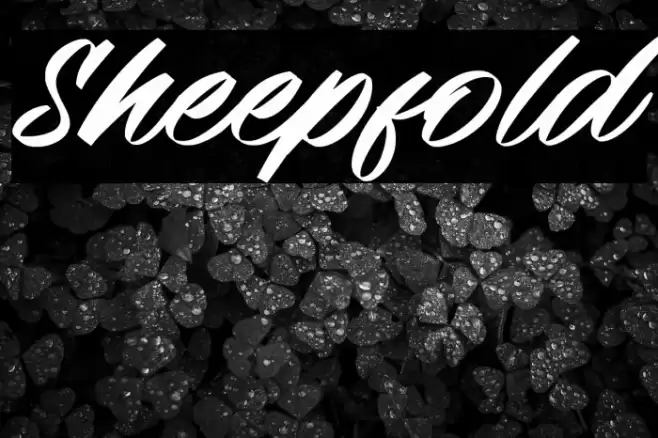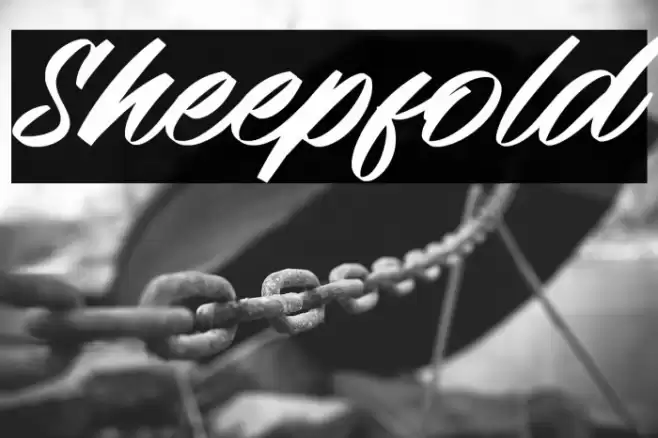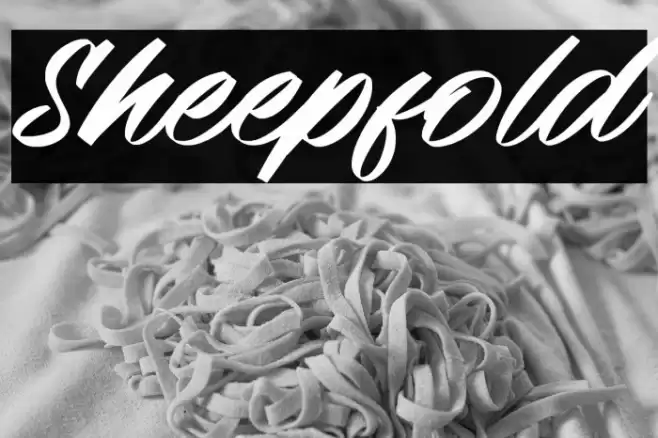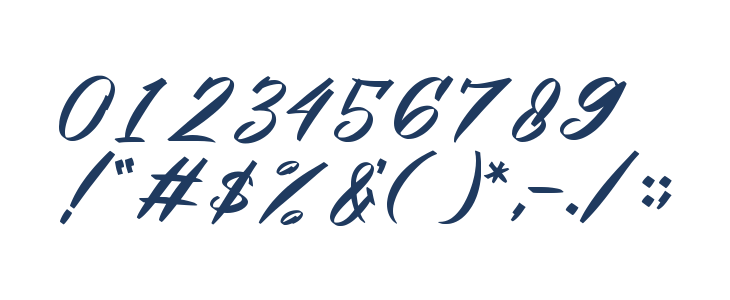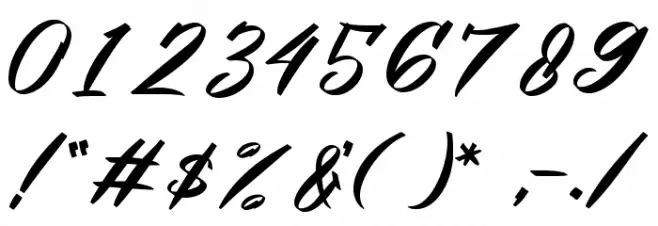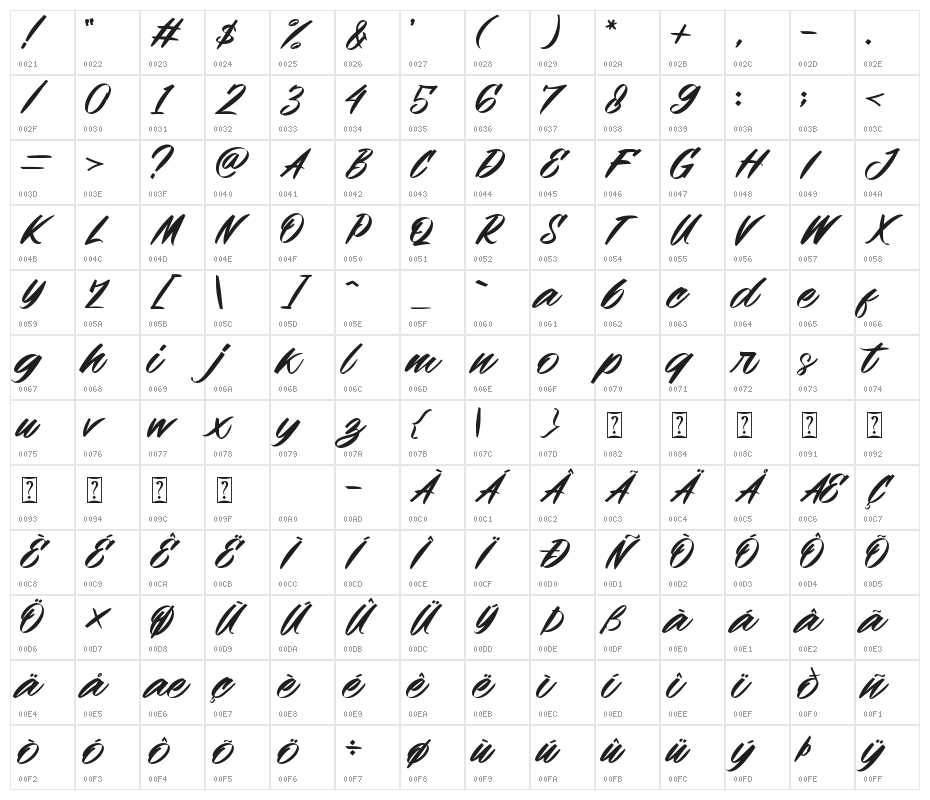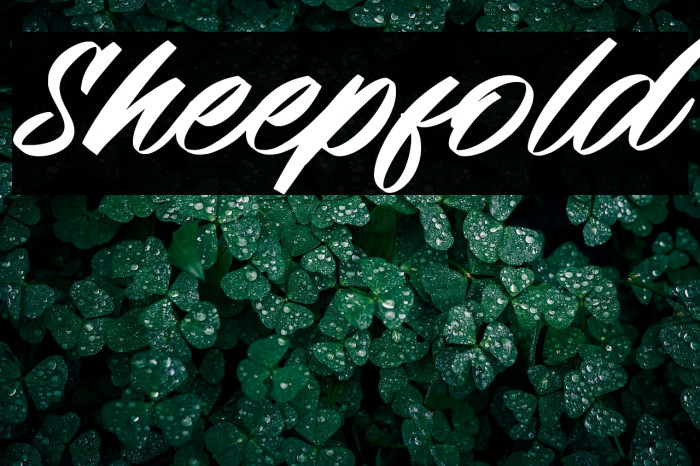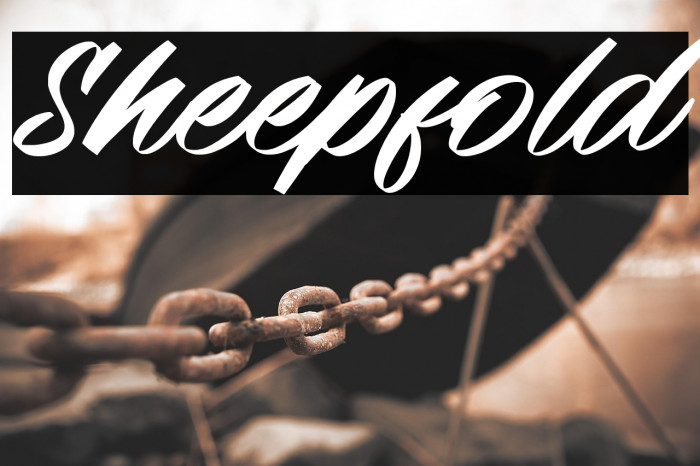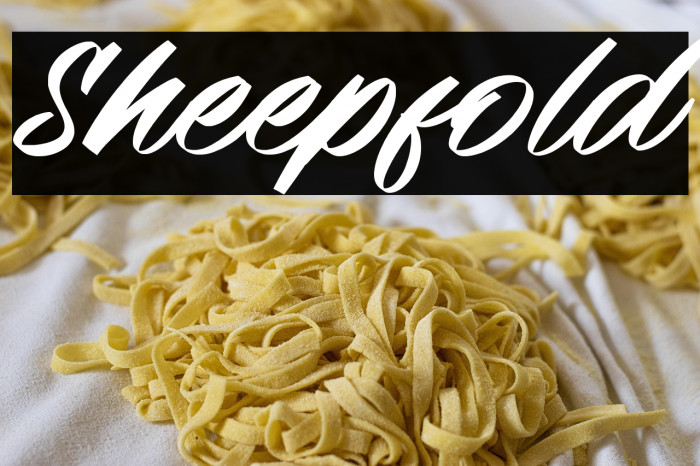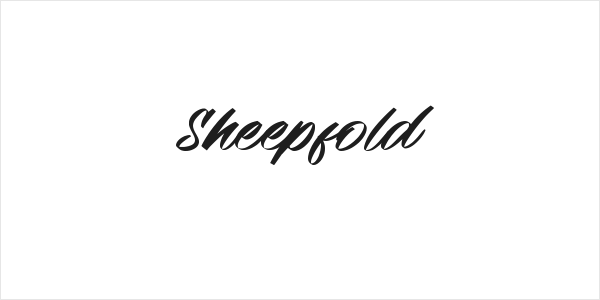
Sheepfold Font
Sheepfold Description
This font exudes a bold and dynamic presence, characterized by its flowing, cursive style that mimics the fluidity of handwriting. The letters are connected with sweeping strokes, giving it an elegant and sophisticated appearance. The uppercase letters are slightly more structured, while the lowercase letters maintain a consistent slant, enhancing the script-like quality. The numbers and special characters follow the same stylistic cues, ensuring uniformity across all glyphs. The overall design is both expressive and versatile, making it suitable for a variety of creative applications.
A bold, cursive script font with flowing, connected strokes from Regular fonts.
- Proposed Projects: Ideal for wedding invitations, branding, logo design, and elegant stationery.
- Use Case: Logos, Invitations, Decorative text